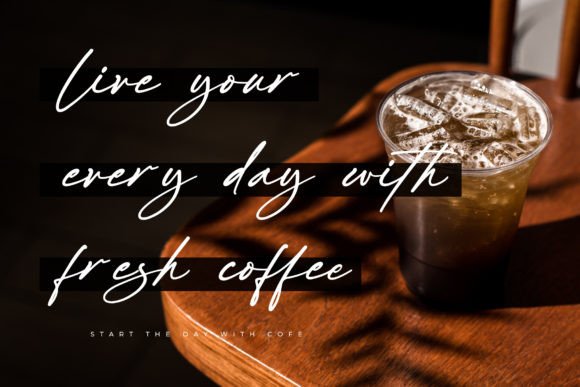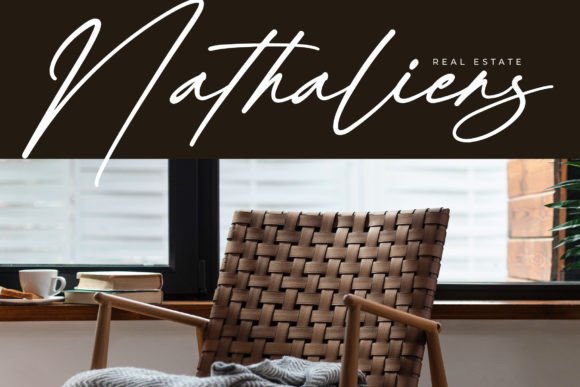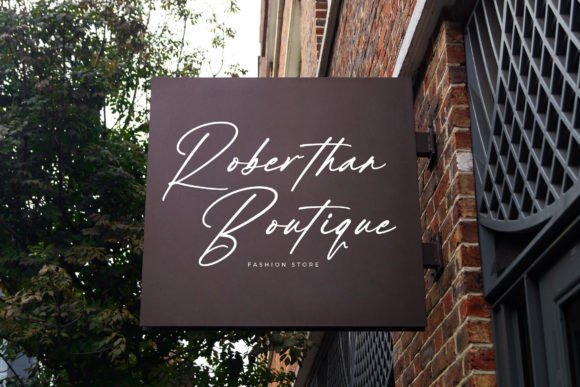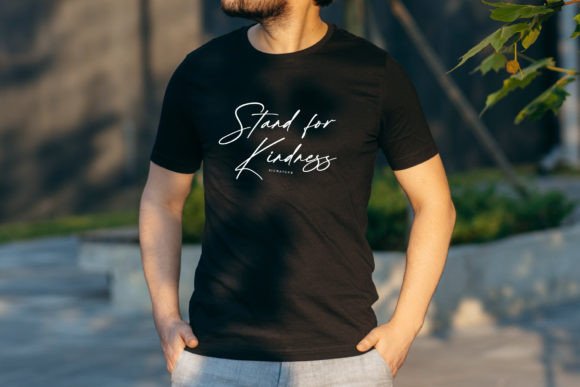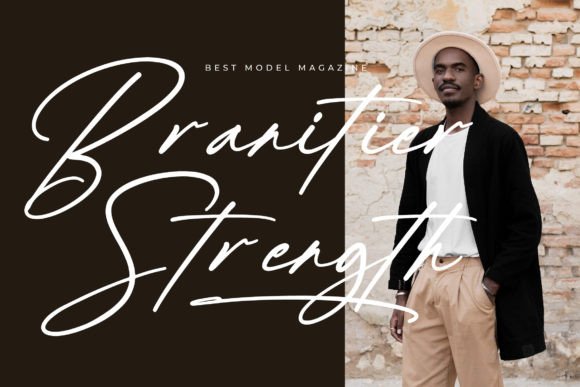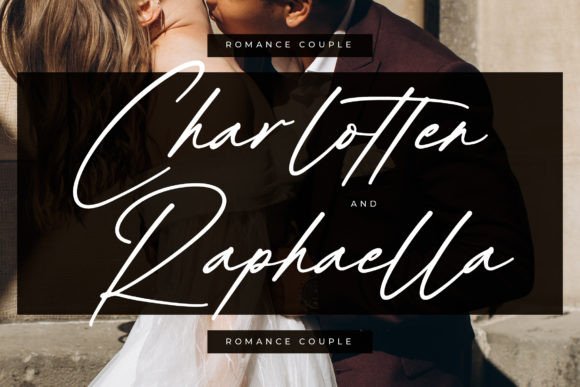
Introducing Alrengths Font: Adding a Personal Touch to Your Designs
Are you tired of using the same old fonts in your designs? Do you want to add a personal touch that sets your work apart from the rest? Look no further than Alrengths Font, a playful, handwritten font that’s perfect for crafters, designers, and anyone looking to add a bit of whimsy to their projects.
What is Alrengths Font?
Alrengths Font is a unique, handwritten font that looks like it was jotted down quickly. It has a relaxed, informal style with a bit of a messy charm, making it perfect for adding a personal touch to your projects. The font is designed to mimic the look of handwritten text, with subtle imperfections and variations in lettering that give it a human touch.
Characteristics of Alrengths Font
So, what makes Alrengths Font so special? Here are just a few of its key characteristics:
- Playful style: Alrengths Font has a fun, playful style that’s perfect for designs that need a bit of personality.
- Handwritten look: The font has a genuine, handwritten look that’s perfect for adding a personal touch to your projects.
- Relaxed, informal style: Alrengths Font has a relaxed, informal style that’s perfect for designs that need to feel approachable and friendly.
- Messy charm: The font has a bit of a messy charm, with subtle imperfections and variations in lettering that give it a human touch.
Uses for Alrengths Font
So, what can you use Alrengths Font for? The possibilities are endless! Here are just a few ideas to get you started:
- Handmade crafts: Alrengths Font is perfect for handmade crafts, such as scrapbooking, card making, and journaling.
- Digital designs: The font is also great for digital designs, such as social media graphics, blog posts, and website headers.
- Sign making: Alrengths Font is a great choice for sign making, whether you’re creating a sign for a business or a personal project.
- Stationery: The font is perfect for creating custom stationery, such as letterhead, invitations, and greeting cards.
Tips for Using Alrengths Font
Here are a few tips for using Alrengths Font in your designs:
- Use it sparingly: Alrengths Font is a bold, playful font that can be overwhelming if used too much. Use it sparingly to add a bit of personality to your designs.
- Pair it with a simple font: Pair Alrengths Font with a simple font, such as a sans-serif font, to create a striking contrast.
- Experiment with colors: Alrengths Font looks great in a variety of colors, so don’t be afraid to experiment and find the perfect hue for your design.
- Have fun: The most important thing is to have fun with Alrengths Font! It’s a playful font that’s meant to add a bit of whimsy to your designs.
Alrengths Font in Action
Want to see Alrengths Font in action? Here are a few examples of how the font can be used in different designs: